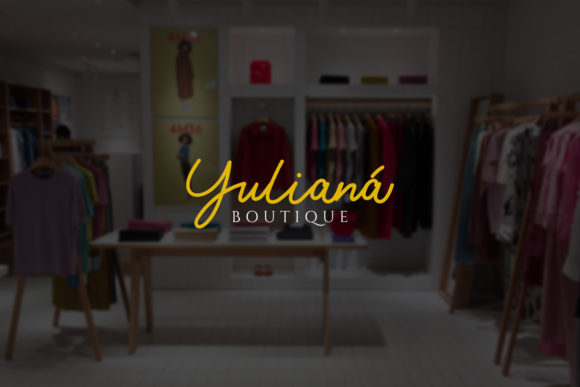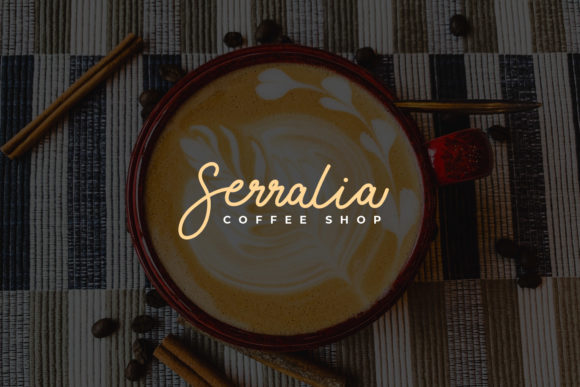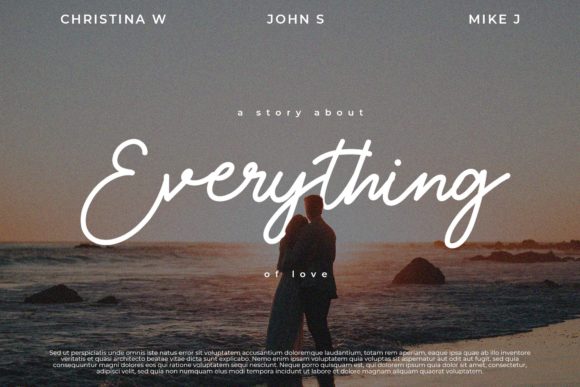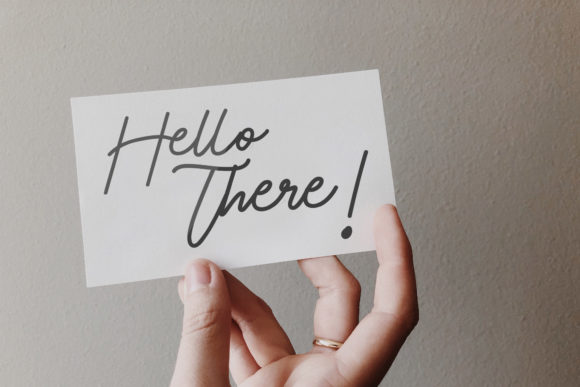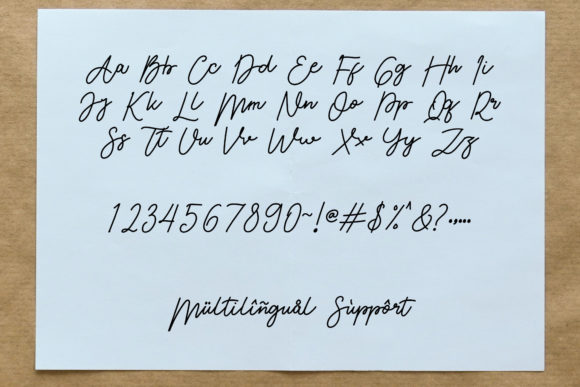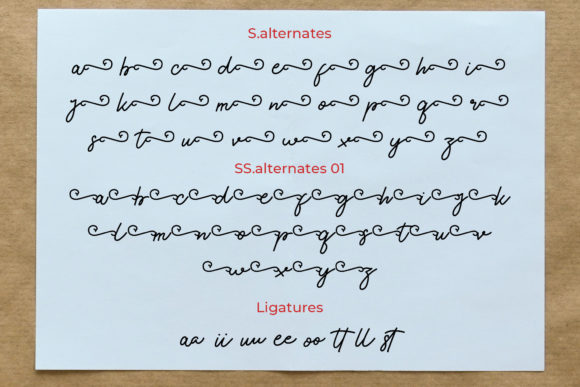
Enttosa Font
About Enttosa Font
Enttosa is a simple and cute handwritten font. It has a vintage vibe and it is incredibly adaptable to a wide rage of designs. This font is PUA encoded which means you can access all of the glyphs and swashes with ease!